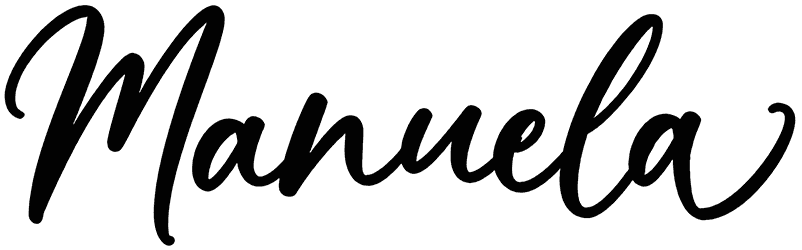
Manuela Font
Aren’t you curious to see how your text looks in a casual but still fancy style? That’s why Manuela is here. Perfect for arranging your words with excellent taste, this cursive font goes out of its way to leave your audience impressed.
If it wasn’t for the good handwriting style, this script font would’ve never been so charming. So take this chance to deliver the finest spring posters, lifestyle websites, design services business cards, and many more projects like that.